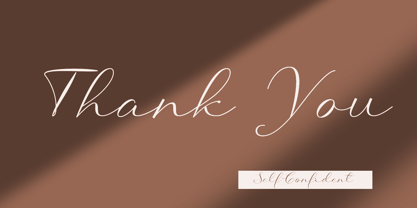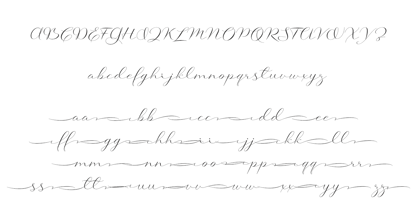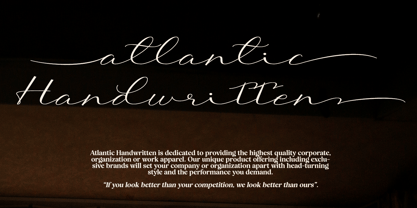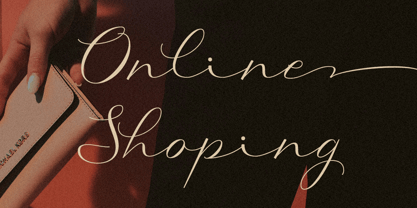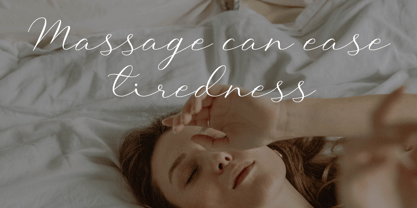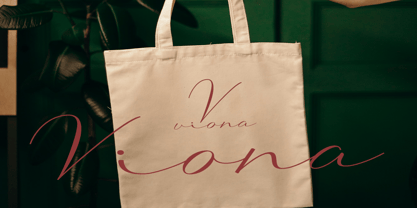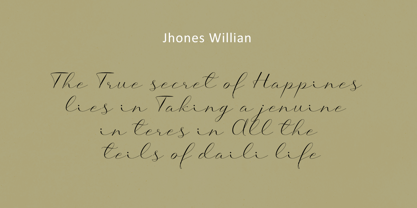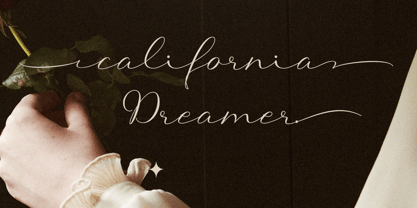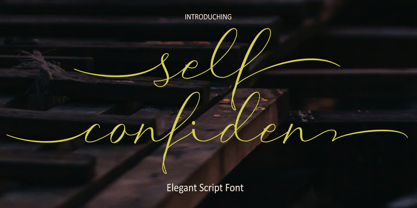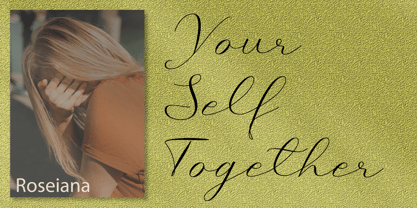
Self Confident
The Self Confident Font Family was designed by Yusliana M Isa and published by Gian Studio. Self Confident contains 1 styles. More about this family
Self-Confident a fresh & modern new script with a handcrafted calligraphy style, decorative characters and dancing baseline! Very pretty for invitations such as greeting cards, branding materials, business cards, quotes, posters and more!!
Self-Confident comes with 353 glyphs. Alternative characters are divided into several Open Type features such as Swash, Stylistic Sets, Stylistic Alternate, Contextual Alternate. The Open Type feature can be accessed using Open Type savvy programs such as Adobe Illustrator, Adobe InDesign, Adobe Photoshop version of Corel Draw X, and Microsoft Word. And this Font has provided PUA unicode (custom coded font). so that all alternative characters can be easily accessed in full by a craftsman or designer.